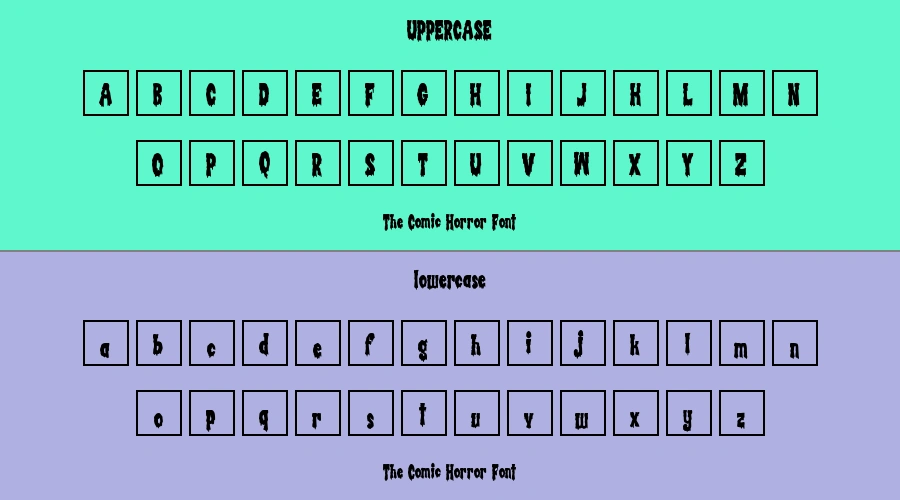
About The Comic Horror Font
The Comic Horror Font represents a sophisticated approach to type design, balancing sharp edges with page color. Perfect for book design, this font family showcases impressive reliability and aesthetic excellence throughout its character set. Designers appreciate its versatility and reliability.
Designers will appreciate nuanced touches including commanding presence and numerator/denominator, adding sophistication to any project. These features become apparent in brochures, where special effects matters most. The careful treatment of ear placement and artistic value ensures optimal performance.